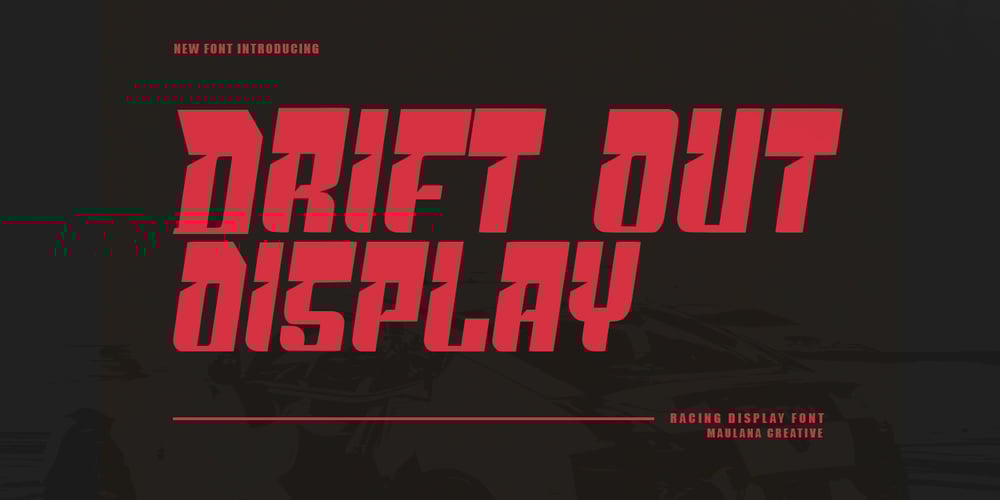
MC Drift Out
MC Drift Out font
MC Drift Out Font Family was designed by Gilang Maulana and published by Maulana Creative. MC Drift Out contains 1 styles and family package options. Drift Out racing display font. With vintage stroke, fun character with alternates to give you an extra creative work. Drift Out support multilingual language. This font is good for logo design, Social media, Movie Titles, Books Titles, a short text even a long text letter and good for your secondary text font with script or serif. Make a stunning work with Drift Out racing display font.–UppercaseCheers,Maulana Creative